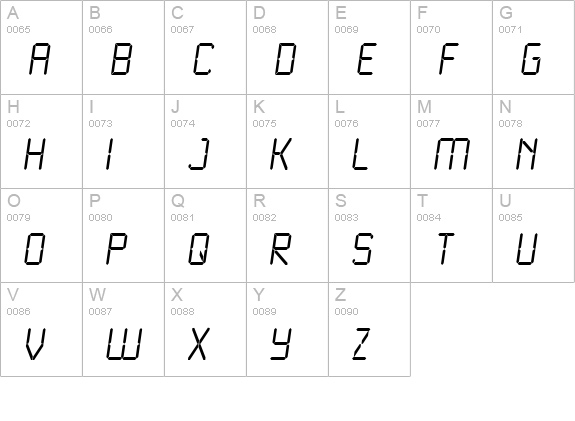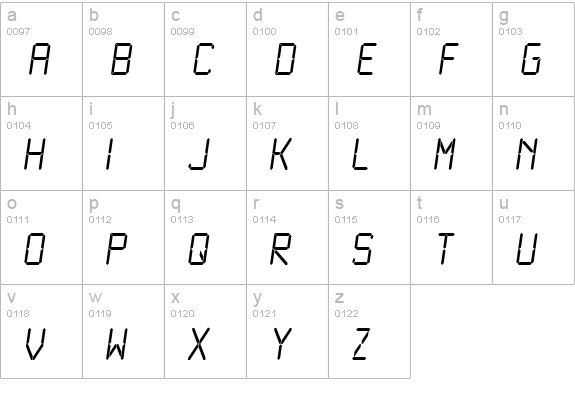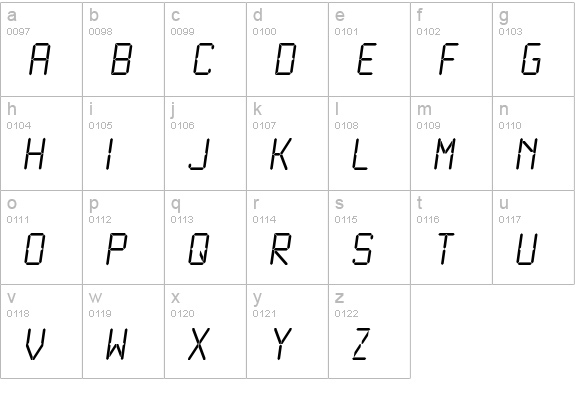
LCD Light Font Details
LCD Light is a refined, elegant variant in the LCD typeface family \xE2\x80\x94 well suited to elegant body text, refined sub-headings, and luxury branding.
Introducing the mesmerizing LCD Light font, a true masterpiece in the world of typography. This stunning typeface is the perfect blend of modern design and retro charm, making it a must-have for any creative project. LCD Light font features a sleek and futuristic appearance, with clean lines and sharp edges that exude a sense of sophistication. Its bold yet elegant letterforms captivate the eye, delivering a powerful visual impact that commands attention. This versatile font is incredibly versatile, making it suitable for a wide range of applications. Whether you're designing a sleek tech logo, creating eye-catching headlines, or crafting a captivating poster, LCD Light font is the ideal choice to make your message stand out. What makes this font even more remarkable is that it is available for free! Yes, you heard it right - this extraordinary typeface can be yours without any cost. Simply head over to FontsMarket.com, where you can download LCD Light font with just a few clicks. Embrace the freedom to create stunning designs without breaking the bank. So why wait? Don't miss out on this incredible opportunity to enhance your designs with the captivating LCD Light font. Download it for free at FontsMarket.com and let your creativity shine like never before.